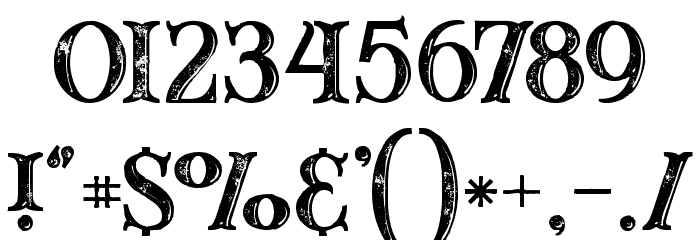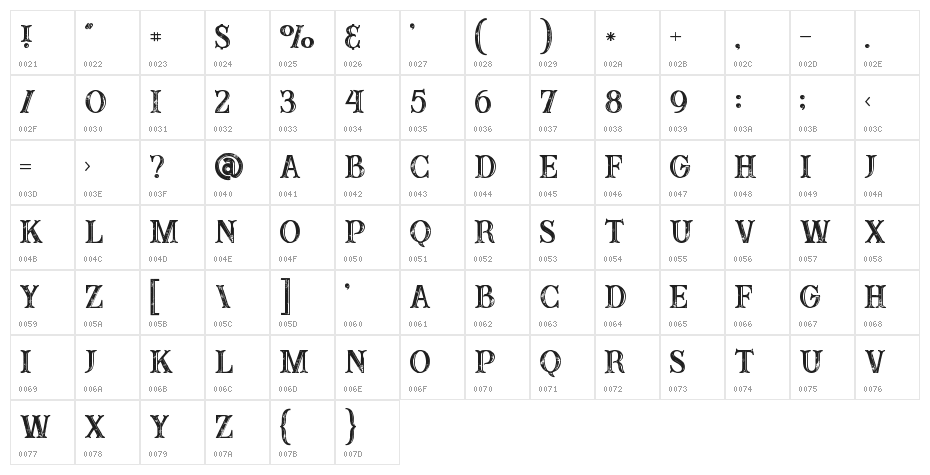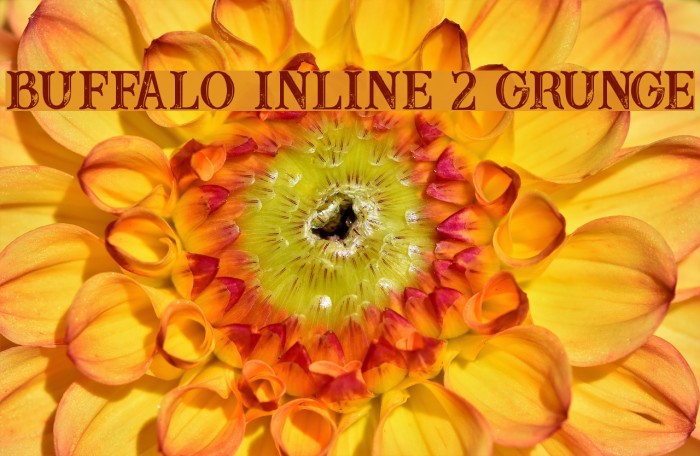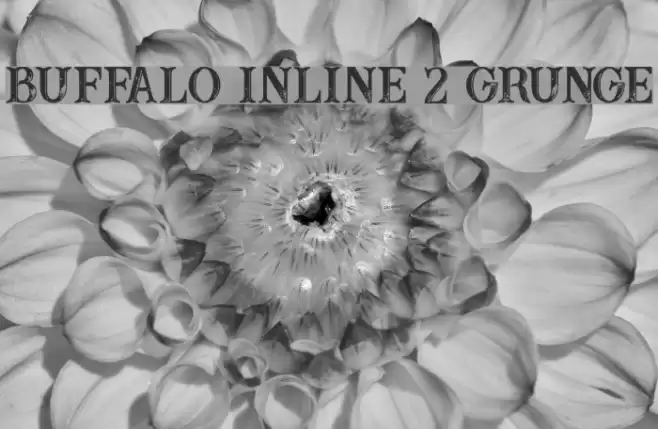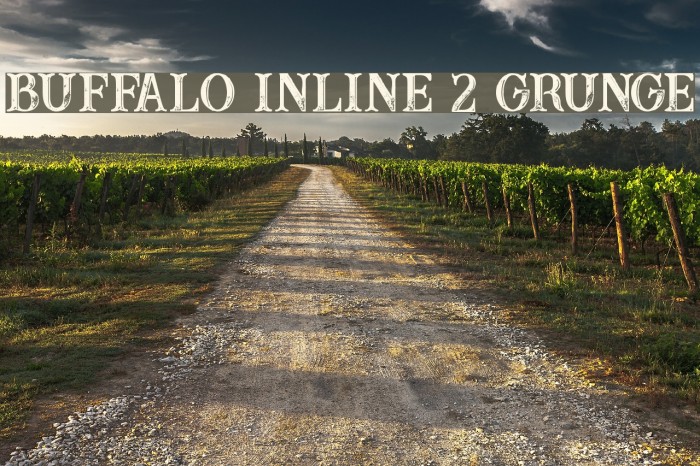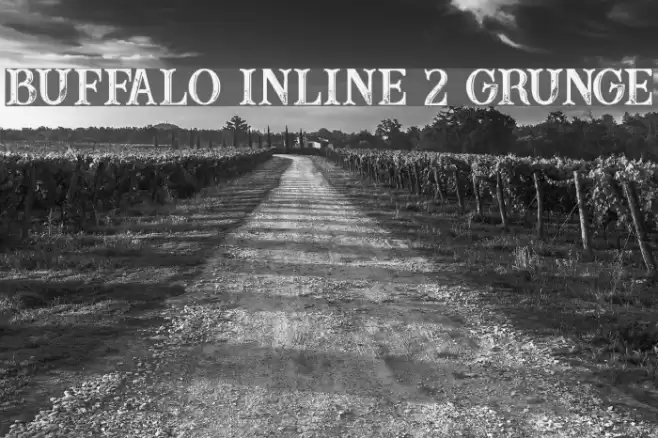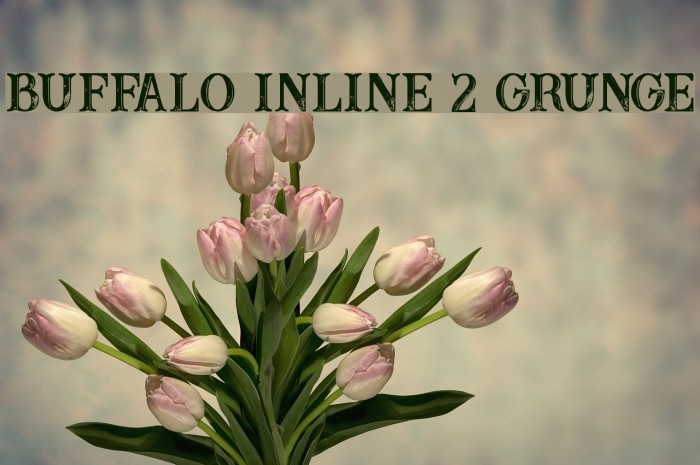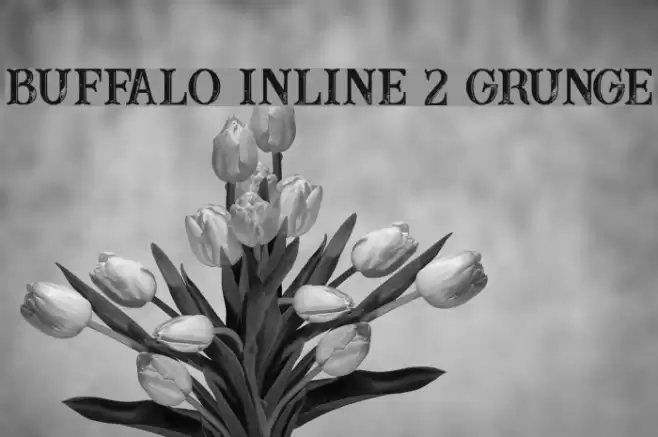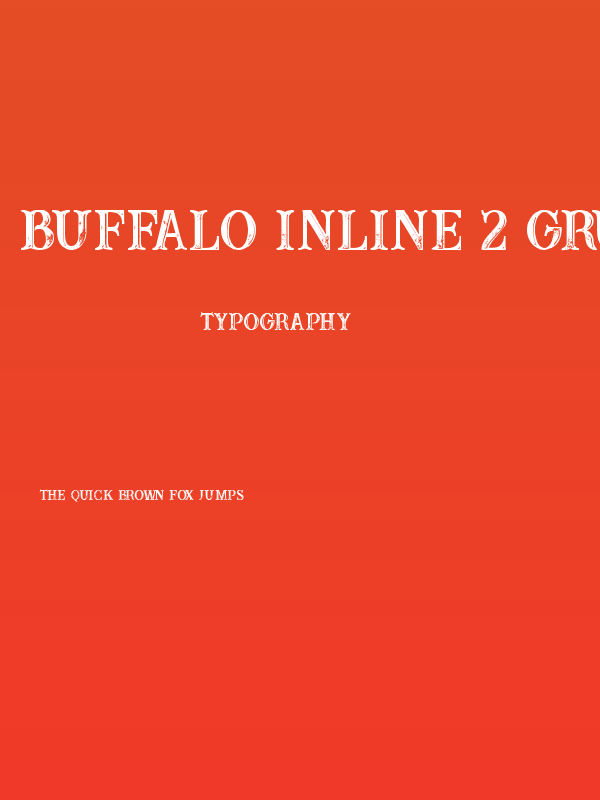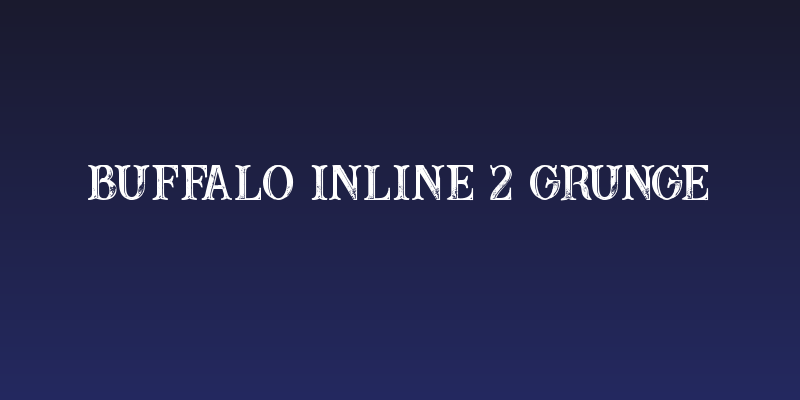
Buffalo Inline 2 Grunge Font
Buffalo Inline 2 Grunge Description
This font features a bold, distressed style with a grunge effect that gives it a rugged and worn appearance. The characters are outlined with an inline design, adding depth and texture. The uppercase letters are prominent and commanding, while the lowercase letters maintain the same distressed aesthetic. Numbers and special characters follow the same stylistic approach, making the font versatile for various design needs. The overall look is both vintage and modern, suitable for projects that require a strong, impactful visual presence.
Overall StyleVintage, Decorative
Proposed ProjectsIdeal for posters, album covers, branding, and any design requiring a bold, vintage aesthetic.